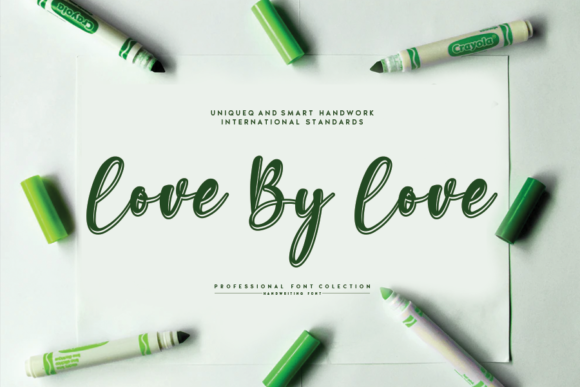
Embark on a journey of typographic enchantment with Love by Love Font, a captivating handwritten masterpiece that will elevate your designs to new heights. This exquisite creation masterfully intertwines the elegance of classic calligraphy with a modern, refreshing twist. Prepare to be captivated by its enchanting curves, graceful strokes, and timeless charm.
Love by Love Font is not just a font; it's an expression of artistry that will infuse your projects with a touch of sophistication and elegance. Its versatile nature makes it an ideal choice for a wide range of creative endeavors, from wedding invitations and love letters to branding and social media graphics. Let your imagination soar as you explore the endless possibilities that await you with this remarkable font.
Immerse yourself in the world of Love by Love Font and discover a treasure trove of carefully crafted characters, each one a testament to the designer's passion and attention to detail. Bask in the beauty of its flowing ligatures and alternates, which add an extra layer of charm and distinctiveness to your designs. With Love by Love Font, you can effortlessly create stunning visuals that leave a lasting impression.
Whether you're a seasoned designer or just starting your creative journey, Love by Love Font is the perfect companion for your artistic explorations. Its user-friendly nature makes it accessible to all skill levels, while its captivating aesthetics ensure that your projects will stand out from the crowd. Unleash your creativity and let Love by Love Font guide you towards typographic excellence.
Join the growing community of designers who have fallen in love with Love by Love Font. Experience the joy of creating captivating visuals that resonate with your audience. With its timeless appeal and endless versatility, Love by Love Font is the ultimate choice for those who seek to elevate their designs and leave an indelible mark on the world. Embrace the love and let your creativity flourish.